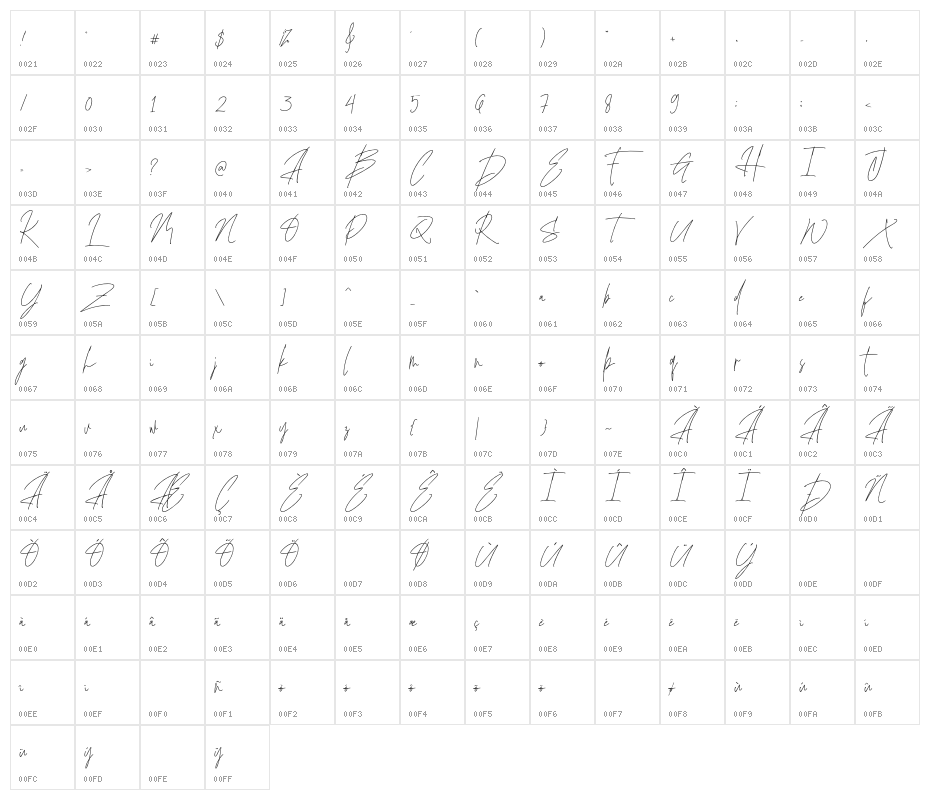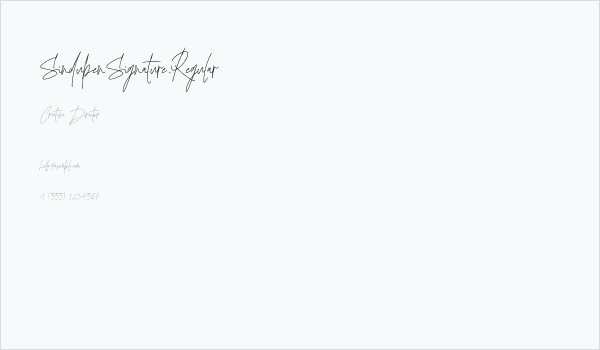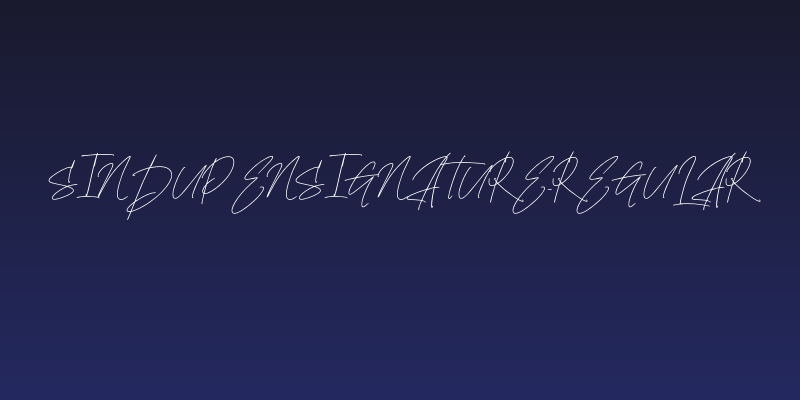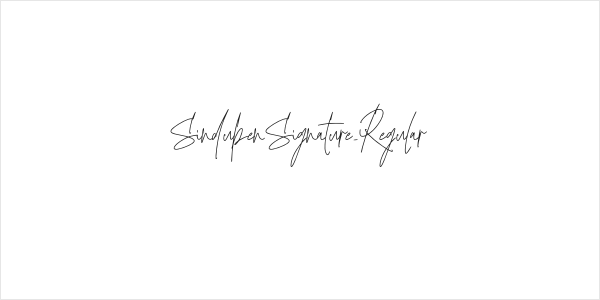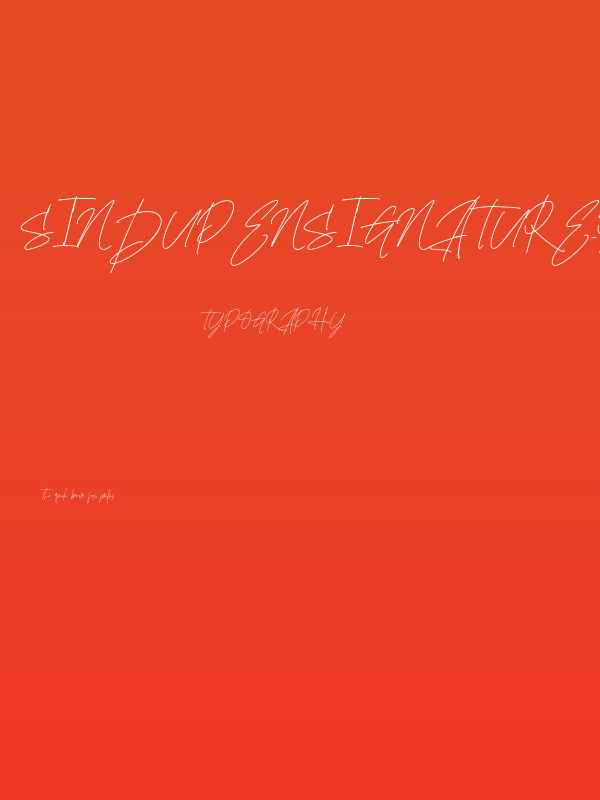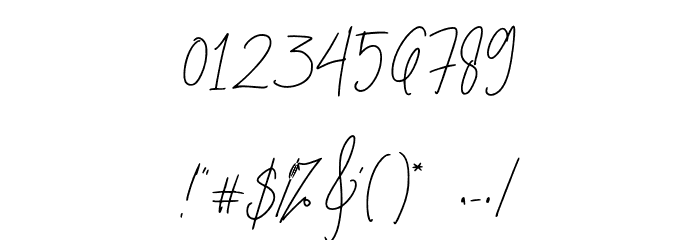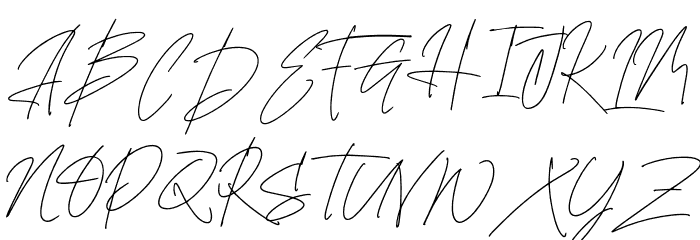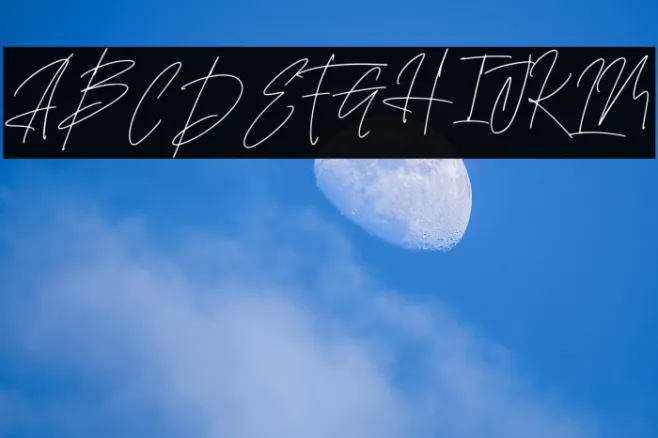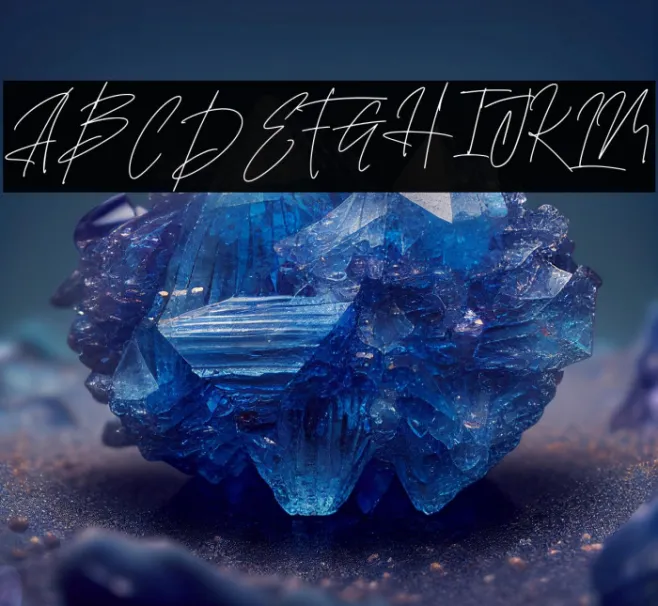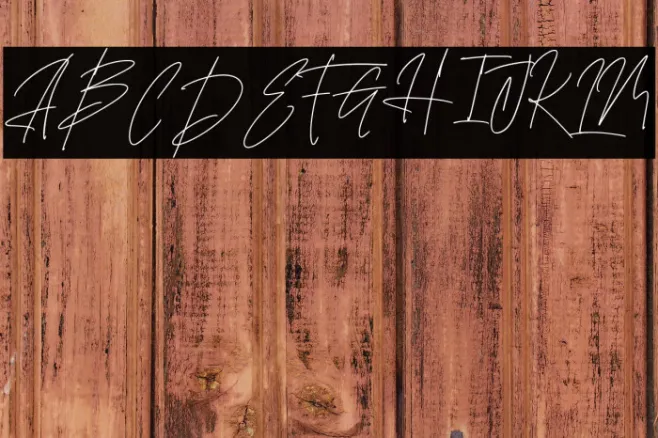
SindupenSignature-Regular Font
SindupenSignature-Regular Description
This elegant script font exudes a handwritten charm, characterized by its fluid, cursive strokes that mimic natural handwriting. The letters are gracefully connected, with a slight slant that adds to its dynamic appearance. The font maintains a consistent flow, with each character seamlessly transitioning into the next. Its thin lines and delicate curves create a sophisticated and stylish look, perfect for adding a personal touch to any design. The font's airy and open structure ensures readability while maintaining its artistic flair.
| Font Family | Sindupen Signature |